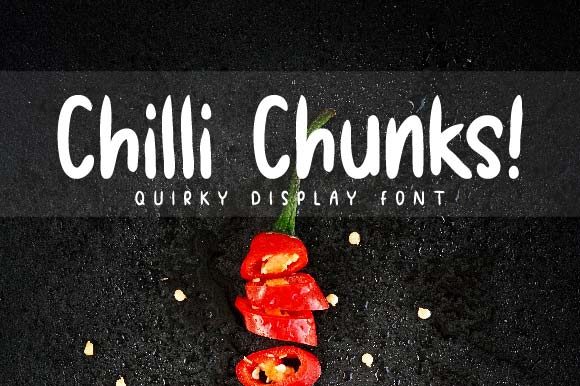
Welcome to the world of Chilli Chunks, a display font family that dances to the rhythm of uniqueness and audacity. As a tattoo enthusiast, you know that your body is a canvas that speaks volumes about your journey. Let Chilli Chunks be the voice of your story, a visual symphony that captivates hearts with every inked line.
Meet Chilli Chunks, a script font that's anything but ordinary. With its playful curves and bold lines, it'll add a touch of individuality to your tattoo designs. This charismatic font will make your body art stand out from the crowd, telling your story in a way that words can't.
At Chilli Chunks, we understand that your tattoos are more than just ink on skin. They are a reflection of your soul, a narrative etched into your being. That's why we've crafted Chilli Chunks to be more than just a font; it's an artistic expression that resonates with your spirit.
With Chilli Chunks, you have the power to transform your tattoo designs into captivating masterpieces. Create flowing scripts that dance across your skin, telling stories of love, courage, and resilience. Or embrace the bold, eye-catching style of Chilli Chunks to make a statement that's as unique as you are.
Chilli Chunks is more than just a font; it's an experience. It's a journey of self-expression, a celebration of individuality. Let Chilli Chunks be your artistic partner, your muse, as you create tattoo designs that are as unforgettable as the stories they tell.
Your body art is a reflection of your soul, and Chilli Chunks is the brush that brings it to life. Dive into the world of this remarkable script font and unlock the potential of your creativity.